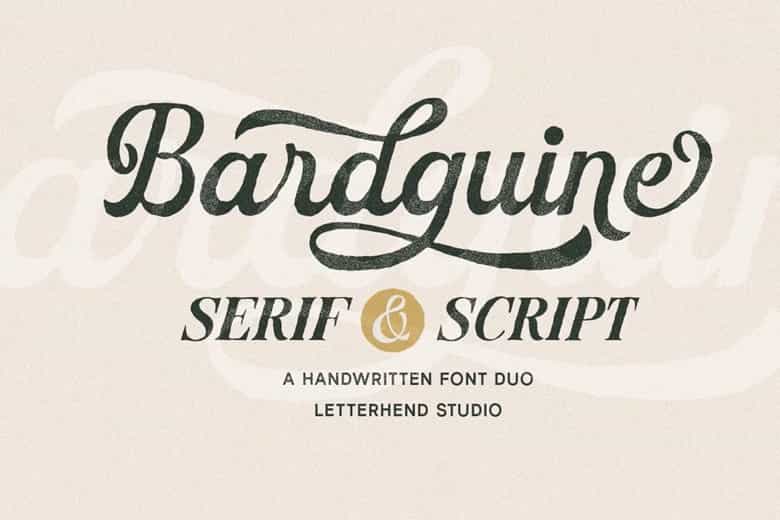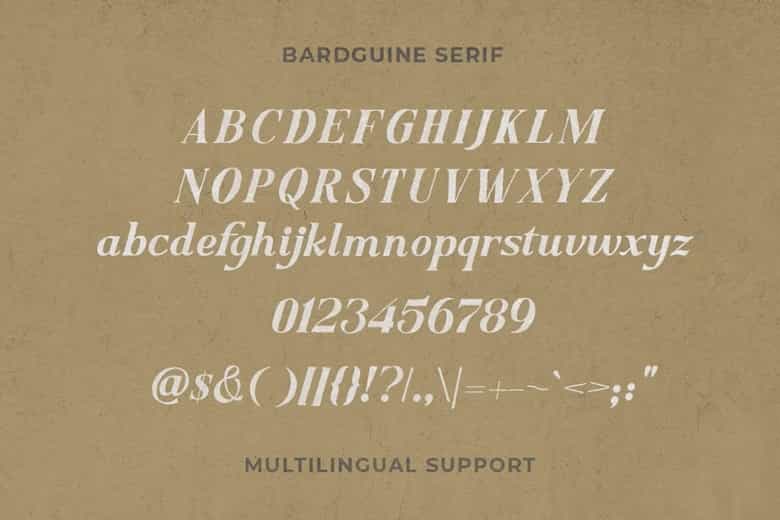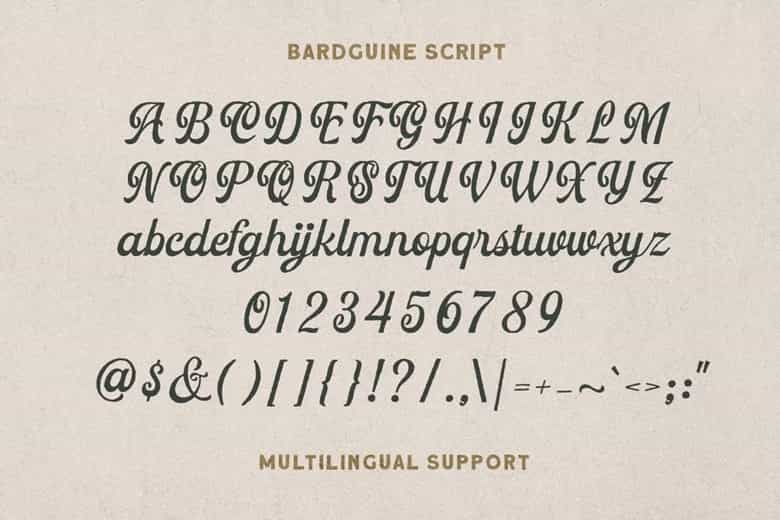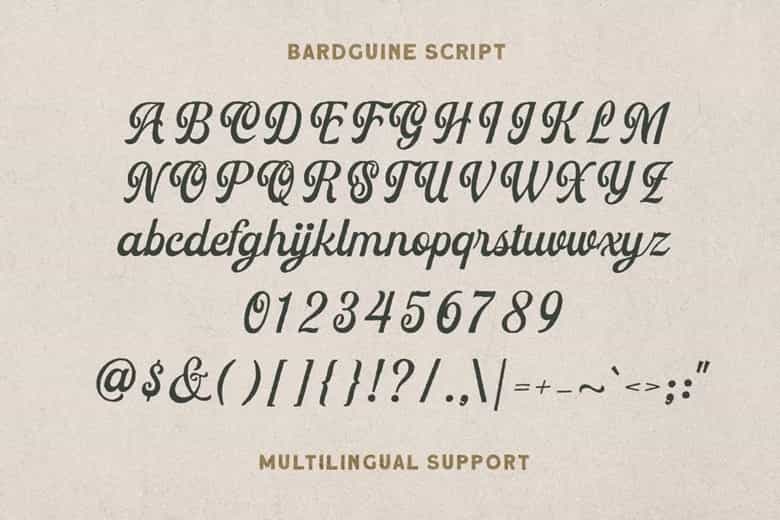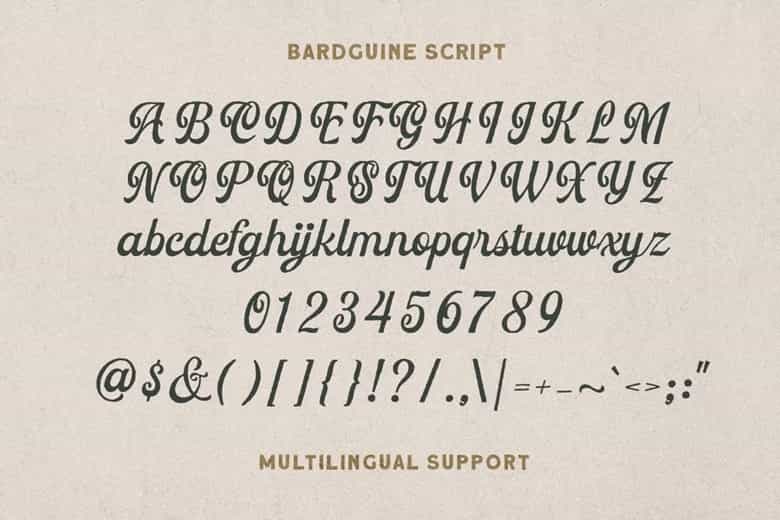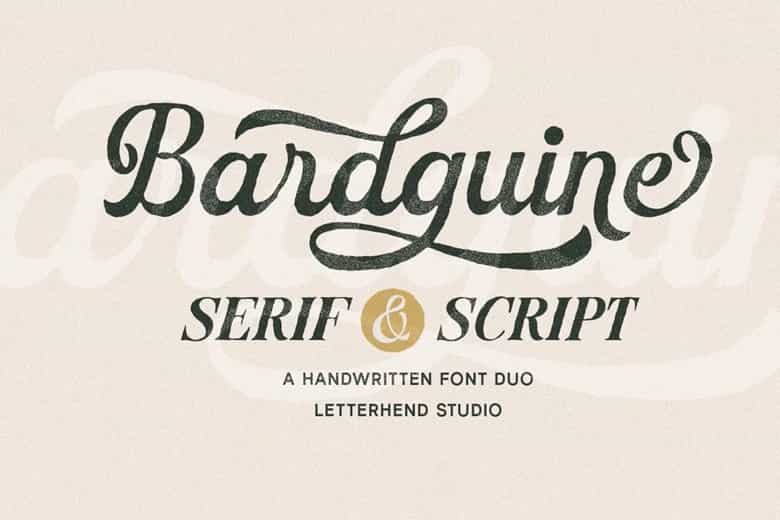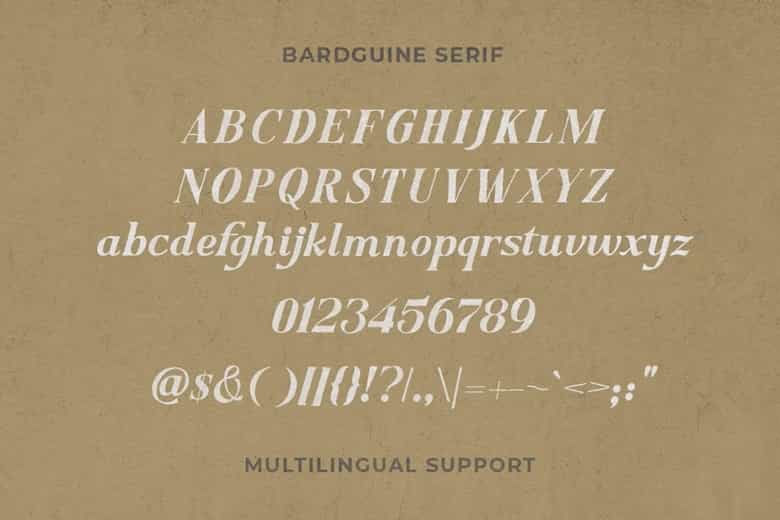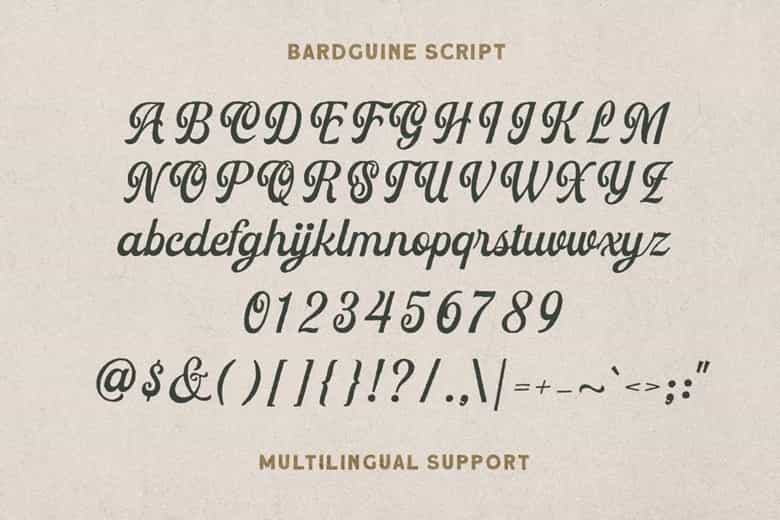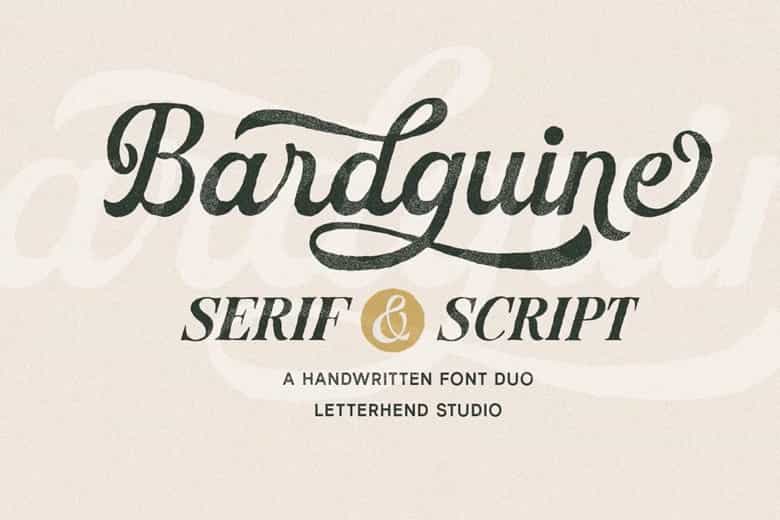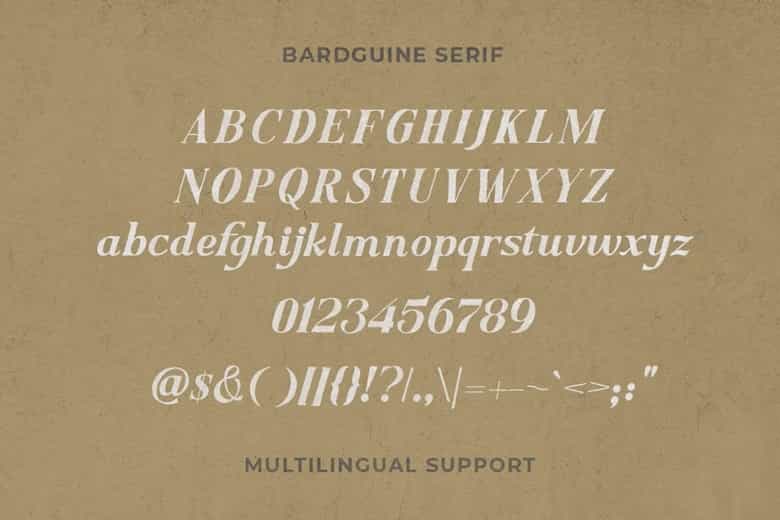
Bardguine Font Duo
Bardguine is a lovely pair of delight handwriting font which pulls off the elegance of a beautiful vintage serif and the natural flowing lines of a simple script. The script version has been designed with a feel of artisan work, delicate/sweeping ligatures and confident strokes producing a handcrafted look, whereas the serif version provides a sense of balance with its solid and clean letter shapes.